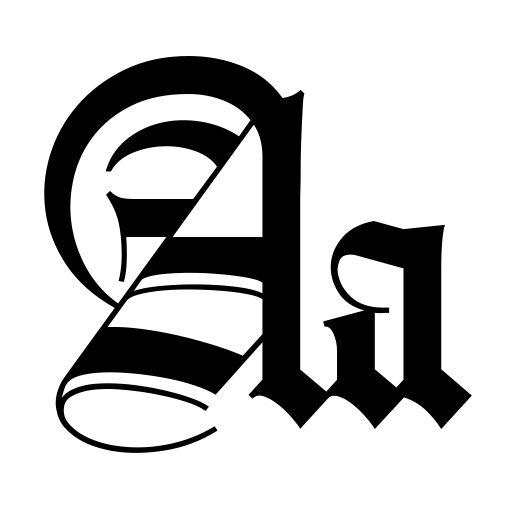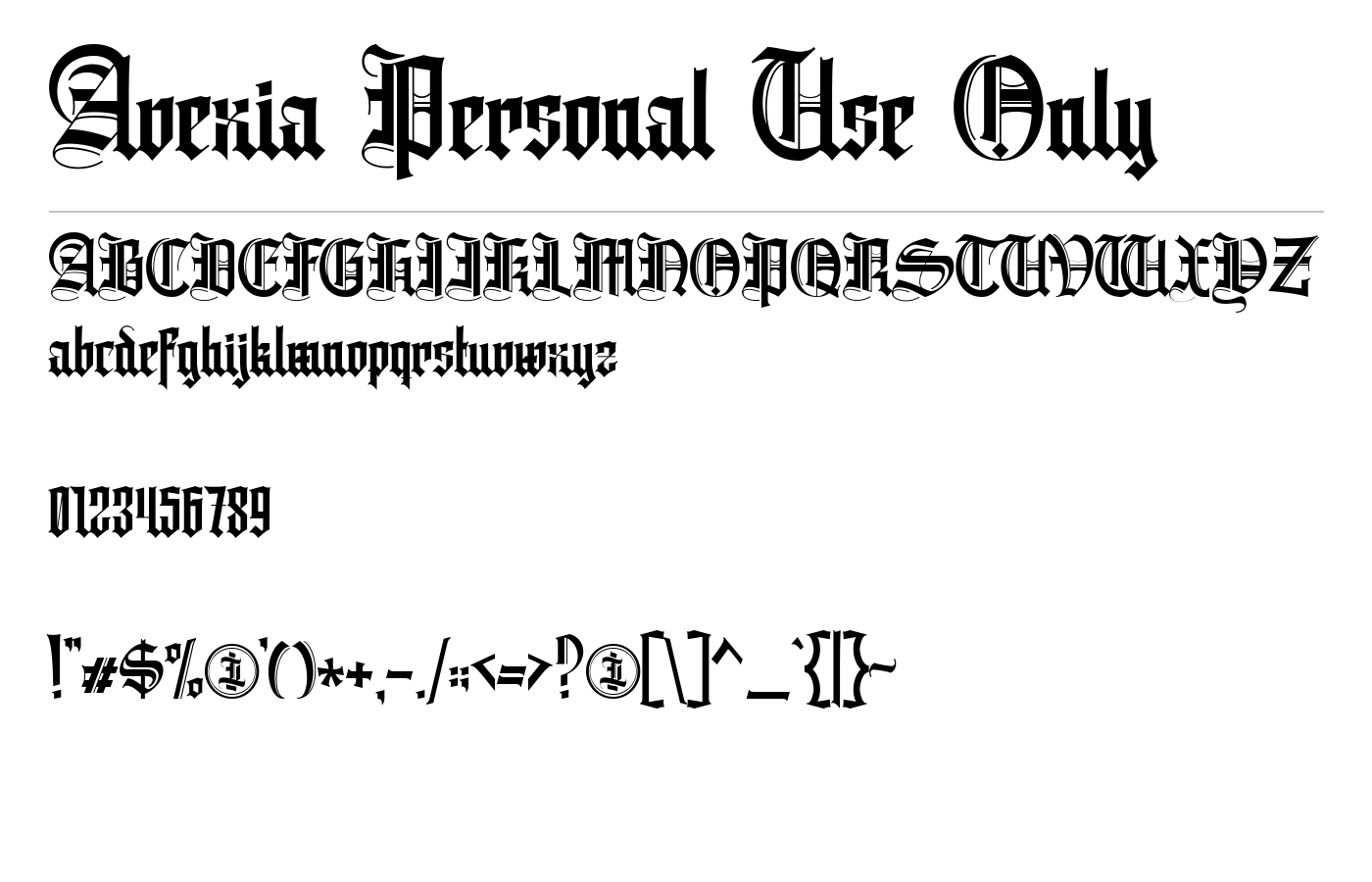
Avexia Personal Use Only is a bold blackletter typeface with intricate detailing and sharp, angular strokes that evoke a gothic, medieval aesthetic. Its dense, highly stylized letterforms and tall x-height create a strong visual impact, making it perfect for dramatic headlines, branding with a vintage or edgy theme, and decorative use where a historic or ornate look is desired. This font works best in display settings where its elaborate style can shine without sacrificing legibility.
Avexia Personal Use Only Font
About Avexia Personal Use Only Font